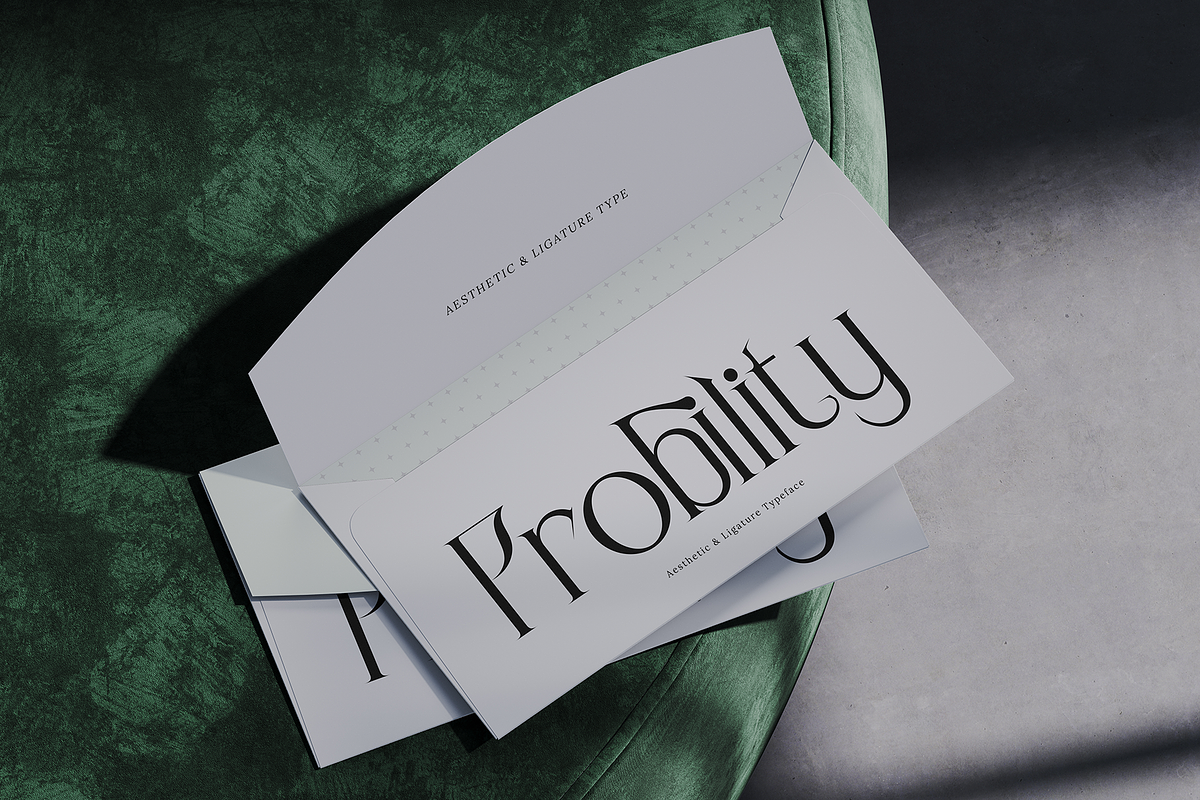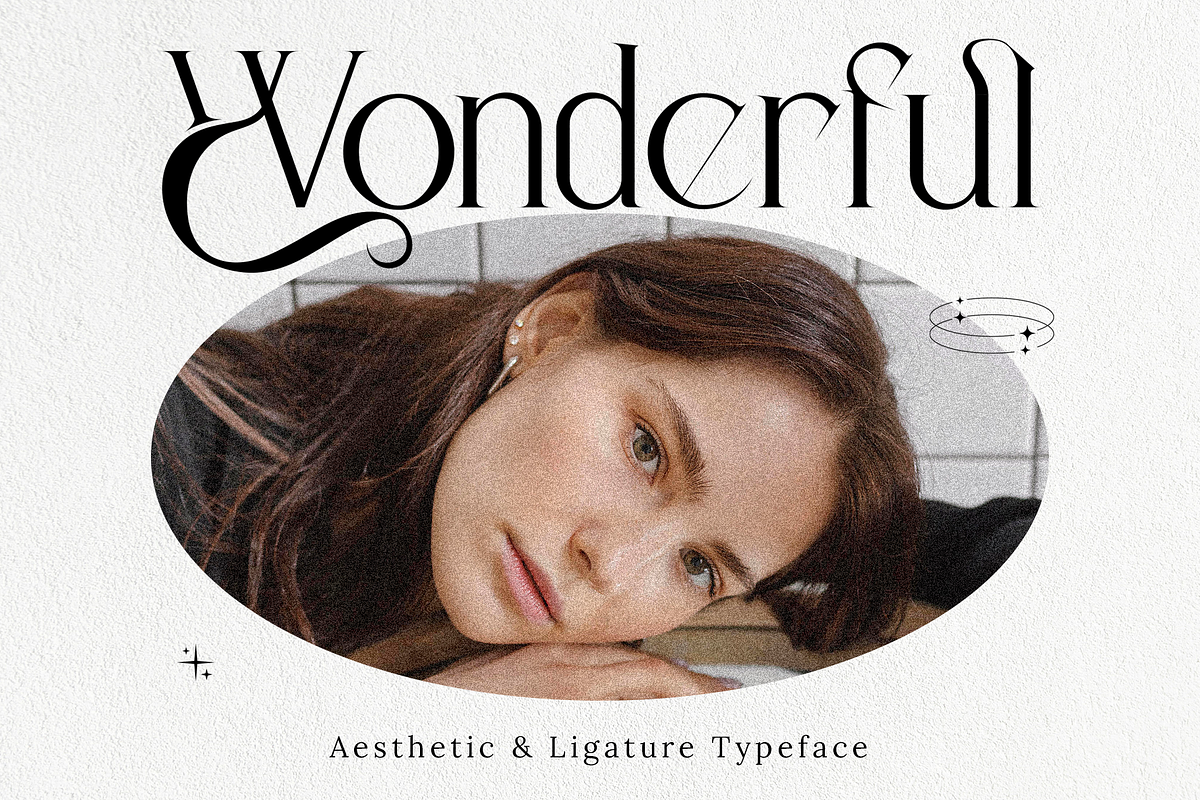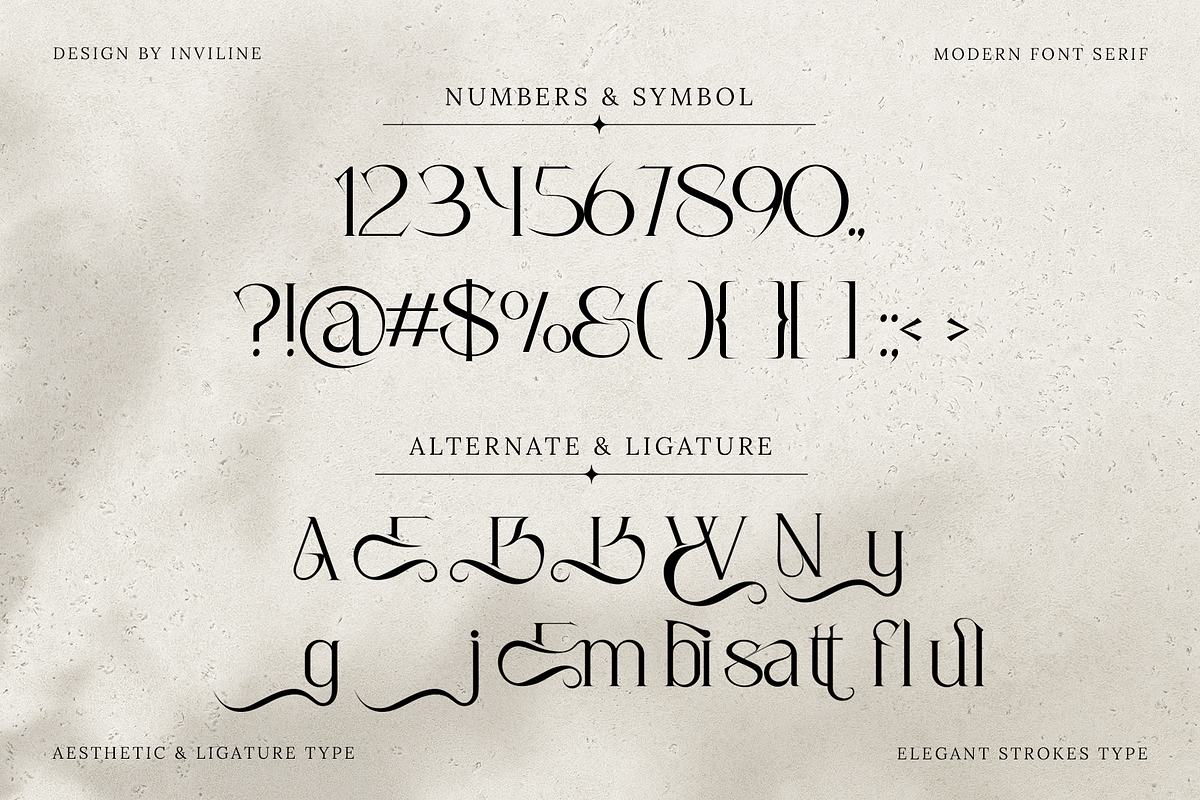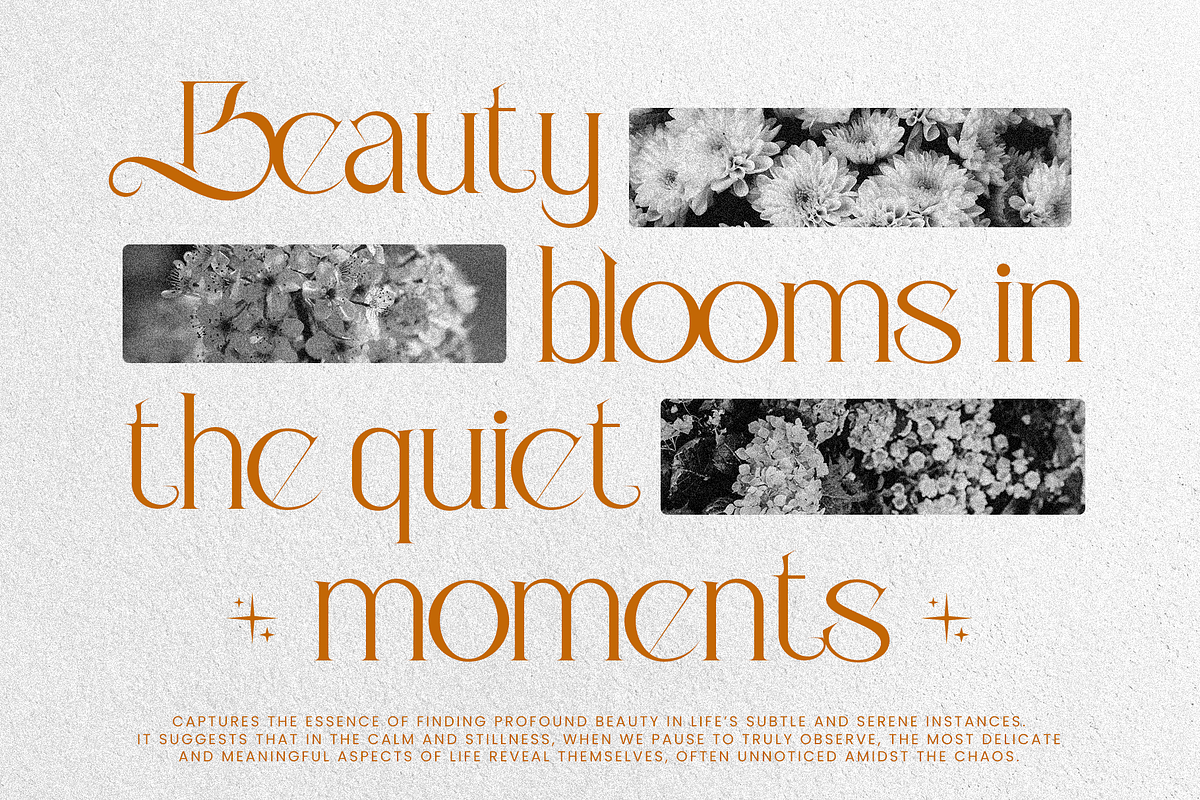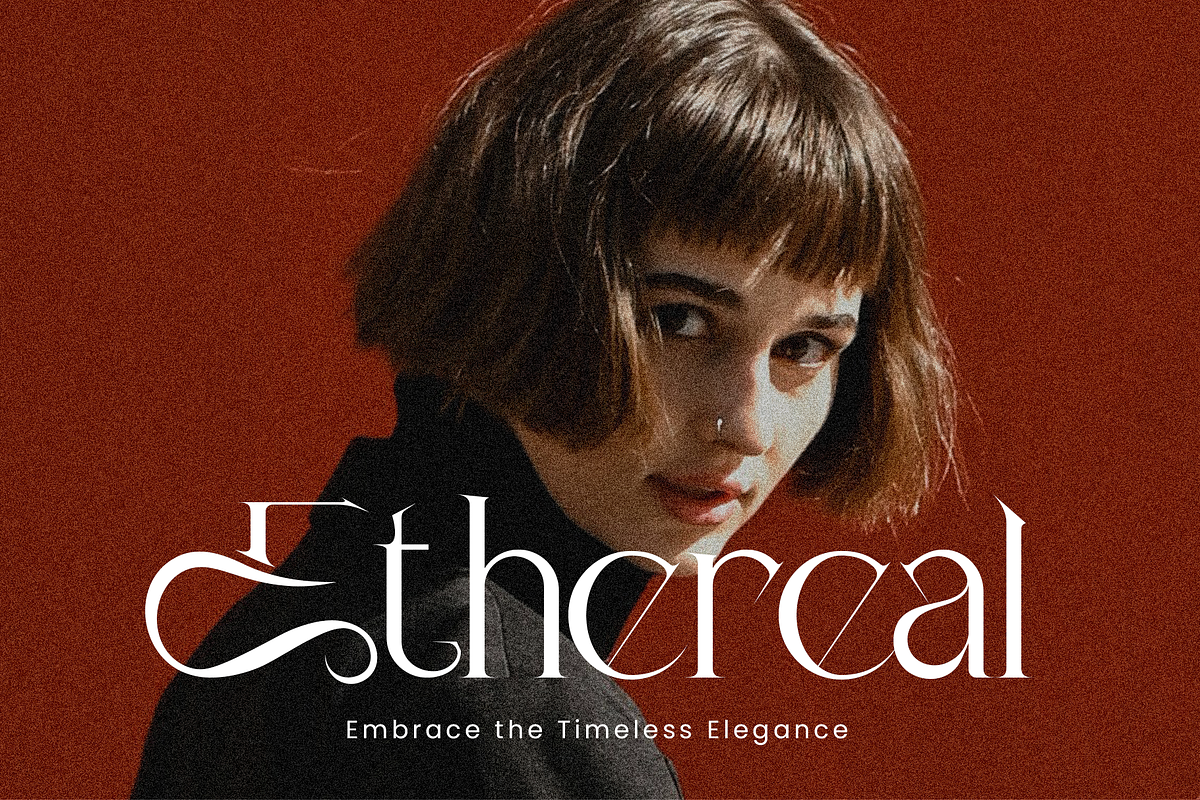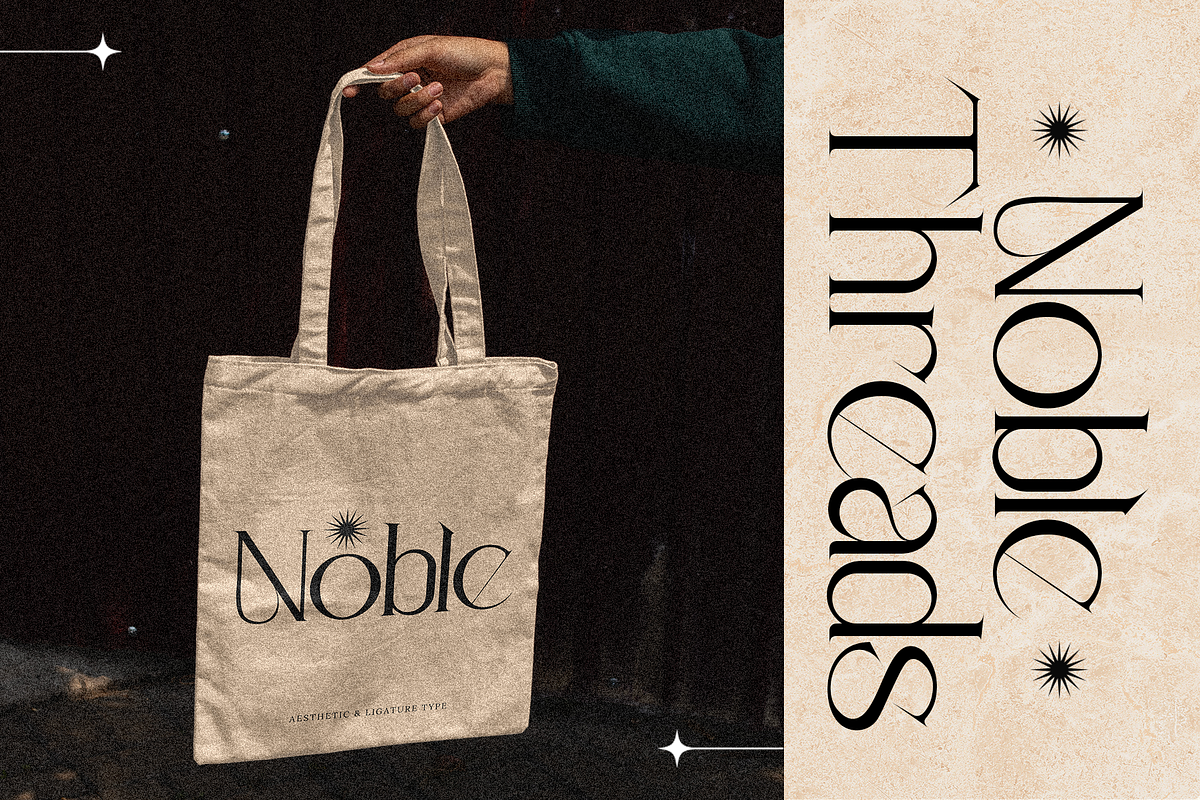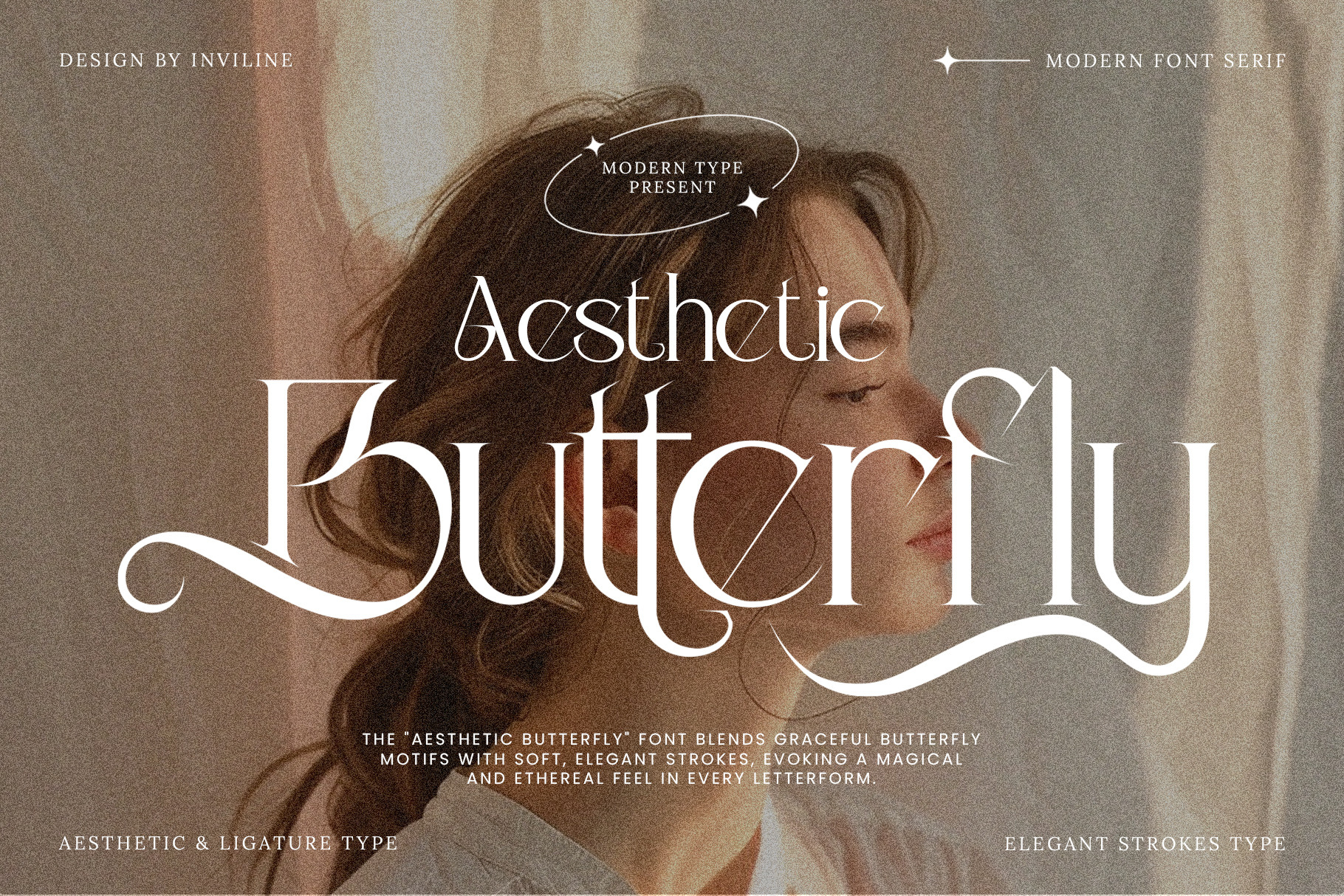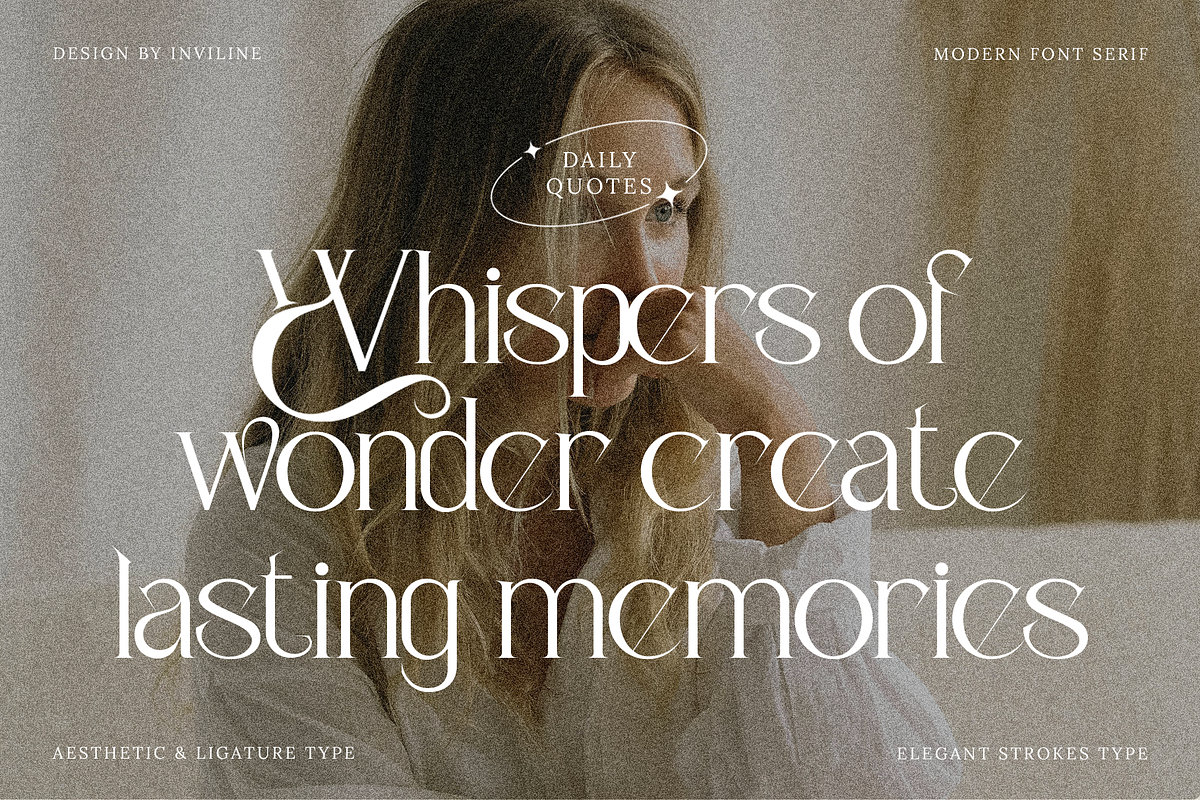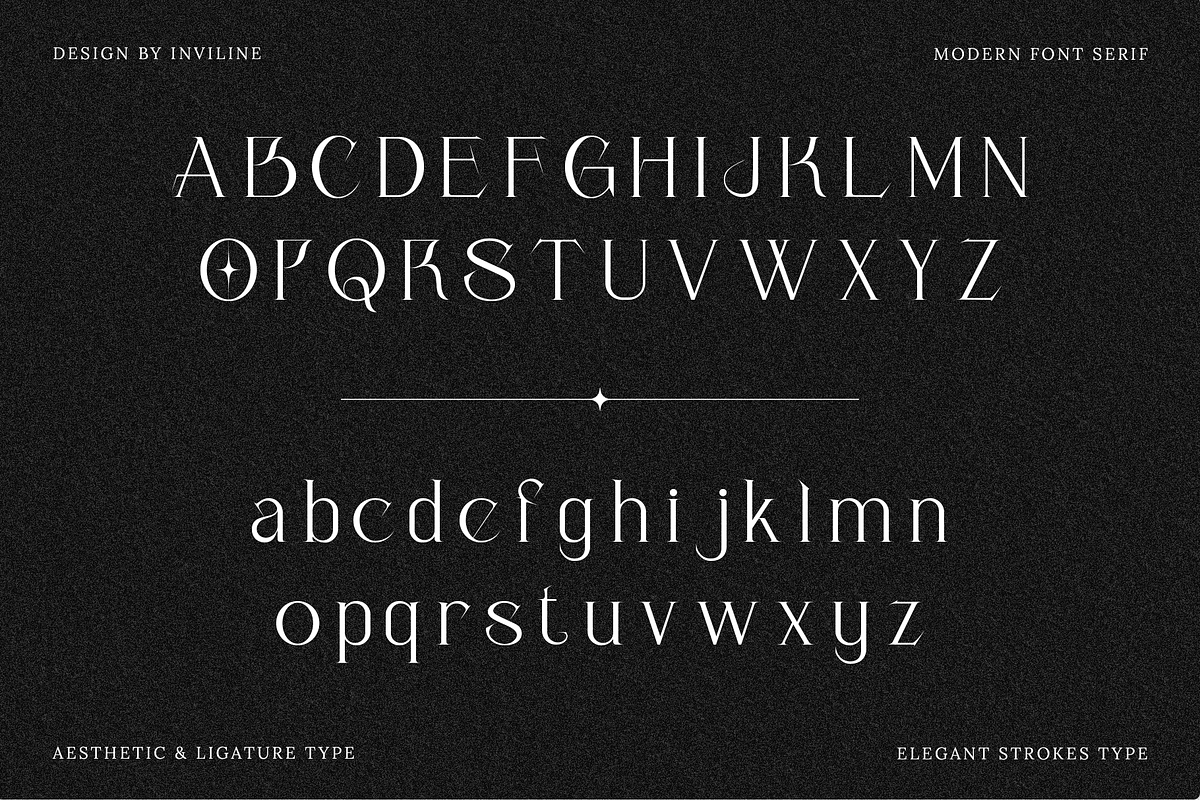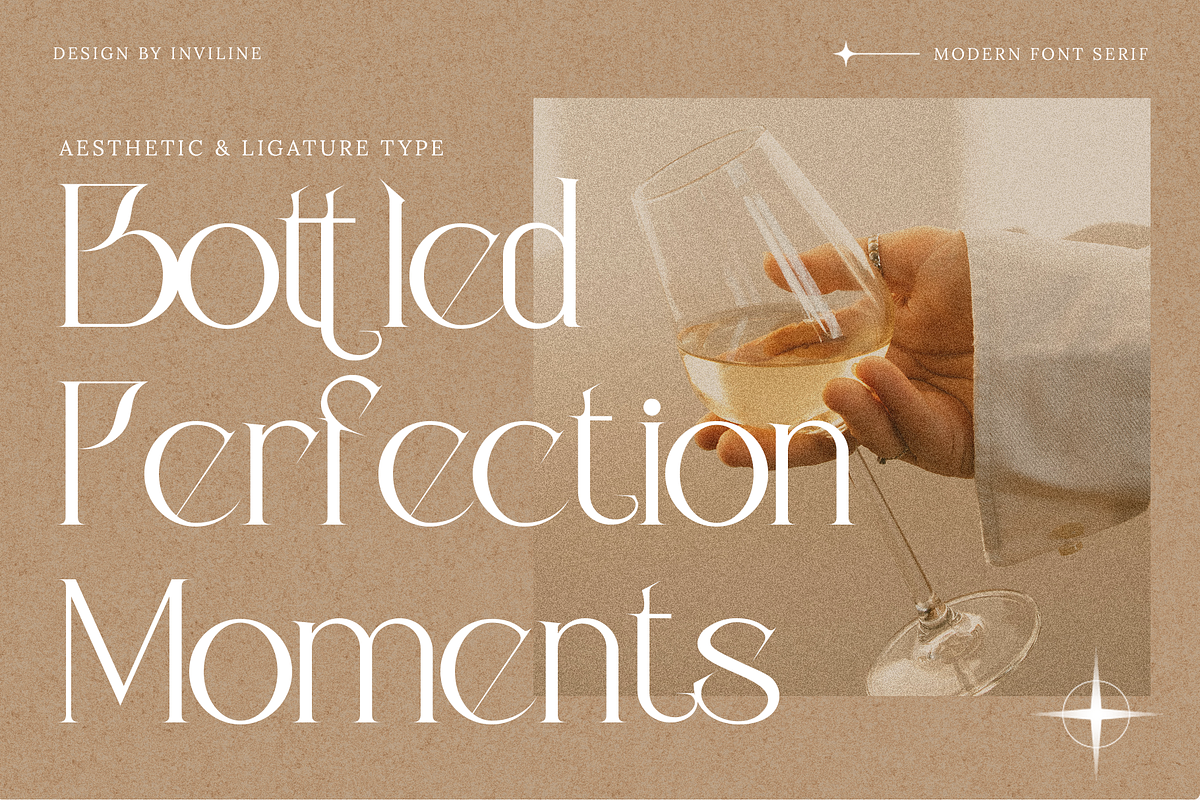
Butterfly - Aesthetic Serif Typeface
Butterfly is an elegant aesthetic serif typeface designed with graceful curves, delicate contrast, and flowing decorative details. Its sophisticated structure blends modern editorial typography with soft, romantic movement, creating a visual style that feels refined, feminine, and timeless.
Inspired by beauty editorials, fashion photography, luxury branding, romantic stationery, and ethereal aesthetics, Butterfly is ideal for projects that need typography with an artistic and elevated personality.
Overview
Butterfly combines high-contrast serif construction with elongated curves, expressive terminals, and elegant swash details. Its standard characters provide a clean and sophisticated foundation, while alternate forms and ligatures allow designers to create more distinctive titles, wordmarks, and editorial compositions.
The font works especially well for fashion campaigns, beauty identities, wedding stationery, perfume packaging, magazine covers, boutique branding, and premium lifestyle projects.
Use Butterfly as a statement display typeface, then pair it with a minimalist sans serif or subtle serif font for captions, product details, and supporting copy.
Butterfly Aesthetic Serif Typeface
Uppercase characters A–Z
Lowercase characters a–z
Numerals 0–9
Standard symbols and punctuation
Stylistic alternate characters
Ligature combinations
Decorative swash forms
Multilingual accented characters
Elegant aesthetic serif design
High-contrast thick and thin strokes
Soft and graceful letter proportions
Decorative swashes and extended terminals
Romantic and ethereal visual personality
Uppercase and lowercase alphabet
Complete numerals
Standard symbols and punctuation
Stylistic alternate characters
Elegant ligature combinations
Strong visual impact at medium and large sizes
Suitable for print and digital applications
Ideal for logos, headlines, names, and short phrases
Works beautifully with fashion, beauty, wedding, and editorial imagery
Easy to pair with minimalist sans serif typography
Stylistic Alternates: alternate forms are clearly part of the visual system, but the exact supported characters are not fully identifiable from the supplied preview
18 Ligature Pairs: st, br, cr, ct, fr, ist, op, or, ox, th, Tr, tt, wn, ff, fi, fl, ffi, ft
Multilingual Support: Western European characters with diacritics (À, Á, Â, Ç, É, Ñ, Ø, Ü, etc.)
Ideal For / Use Case
Beauty branding
Fashion branding
Luxury logo design
Cosmetic packaging
Perfume branding
Jewelry branding
Boutique identities
Wedding invitations
Save-the-date cards
Bridal stationery
Editorial headlines
Magazine covers
Fashion lookbooks
Product packaging
Premium labels
Personal branding
Photography portfolios
Website hero titles
Greeting cards
Book covers
Event invitations
Art direction projects
Lifestyle branding
Sophisticated visual identities
Use Butterfly at medium or large sizes to showcase its refined serif details, elegant contrast, and decorative swashes. It works best for logos, headlines, product names, invitations, editorial titles, and short display phrases rather than long body text.
Pair Butterfly with a clean sans serif font for captions, dates, product descriptions, and supporting information. Allow extra spacing around decorative swashes to maintain a balanced composition.
Best used at medium and large display sizes
Thin strokes may lose clarity at very small sizes
Decorative swashes may require manual spacing adjustments